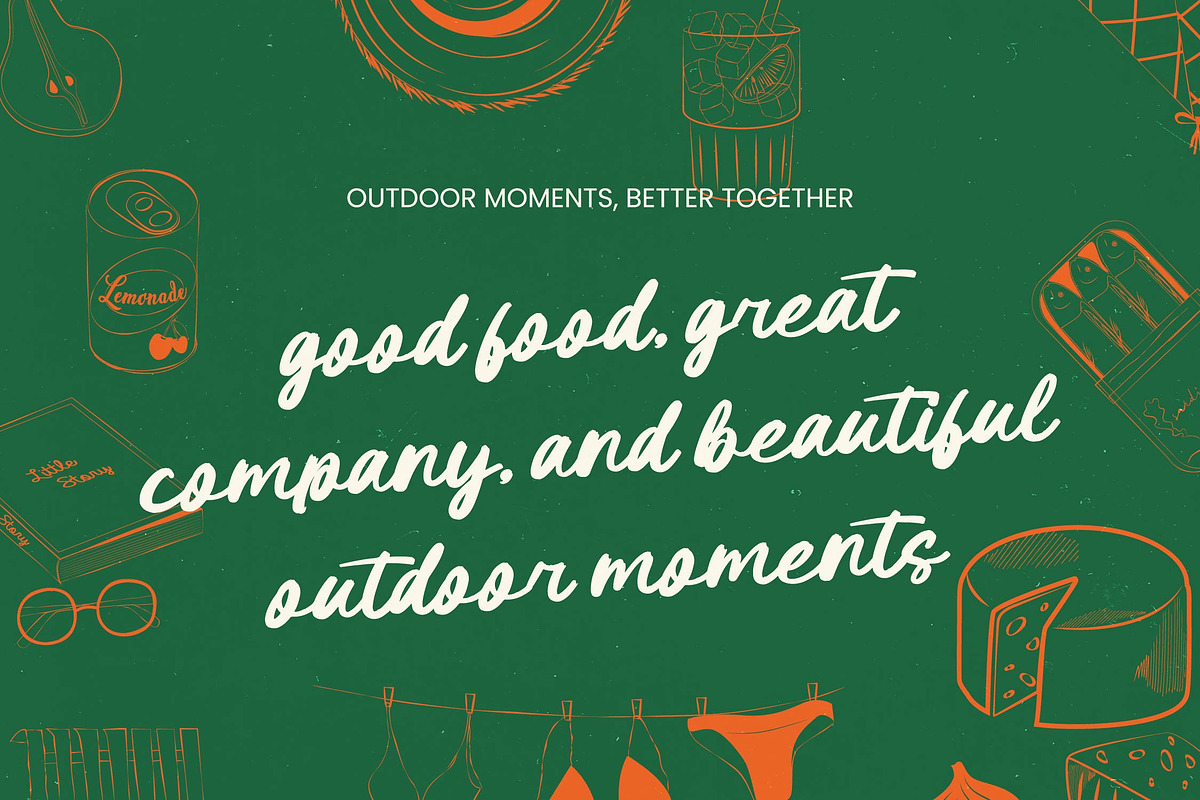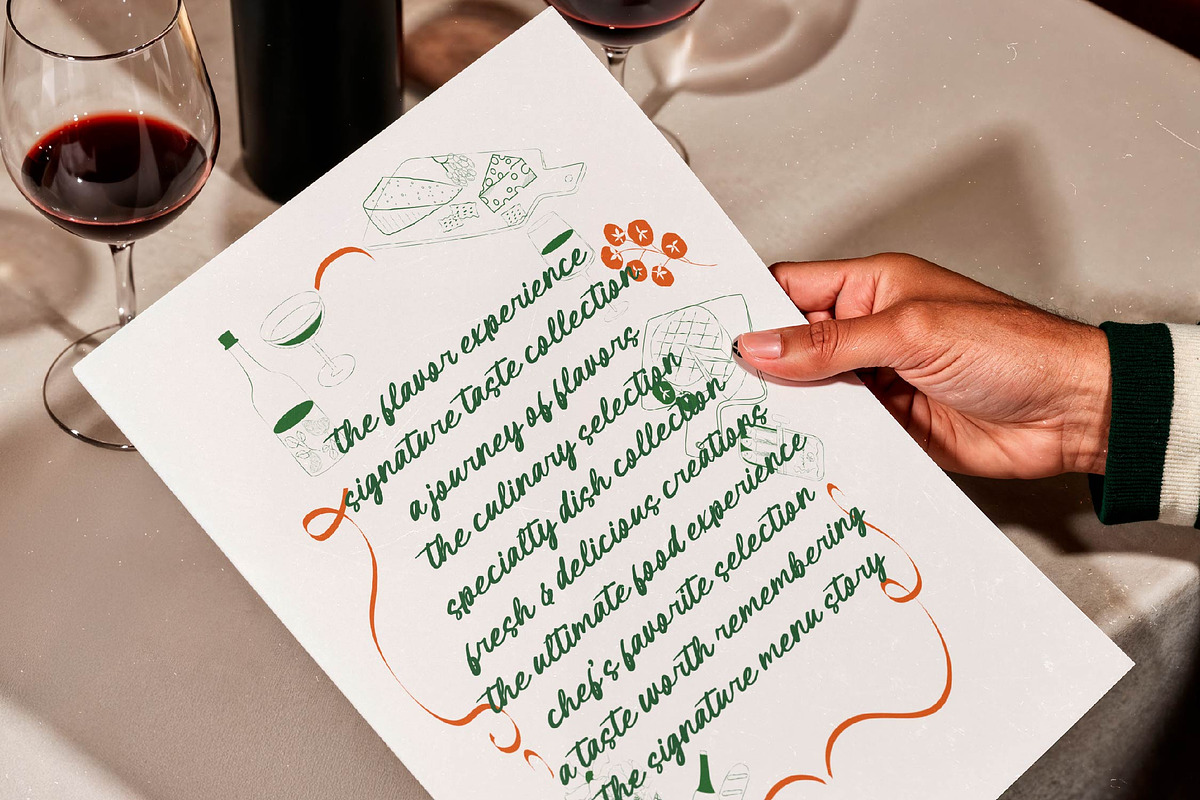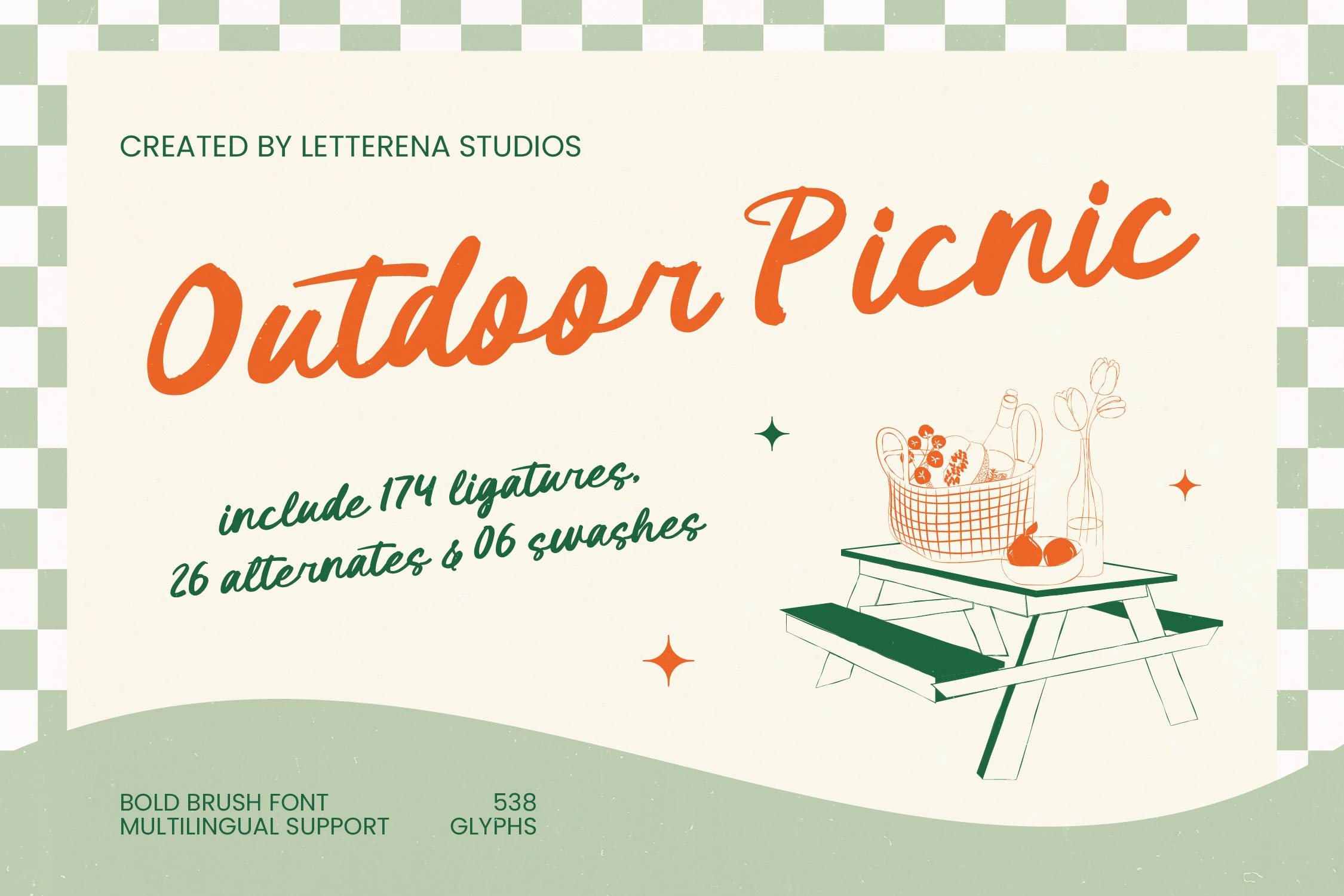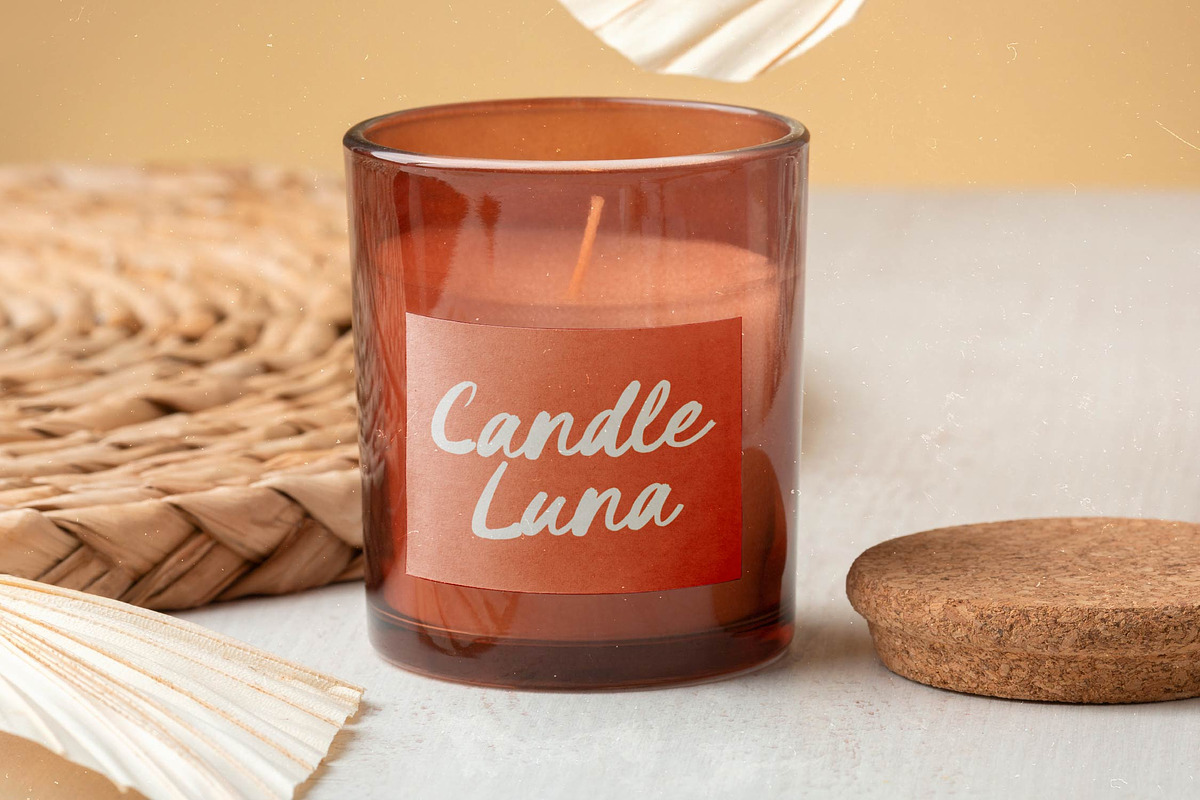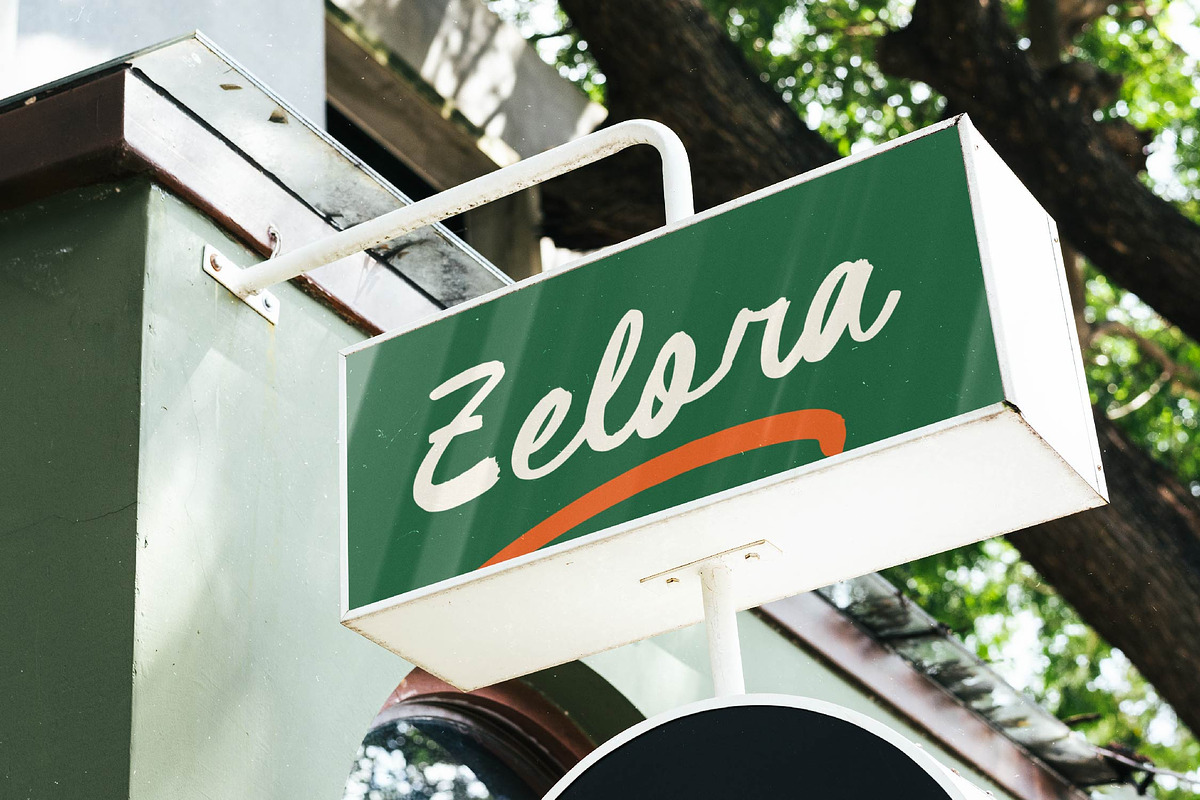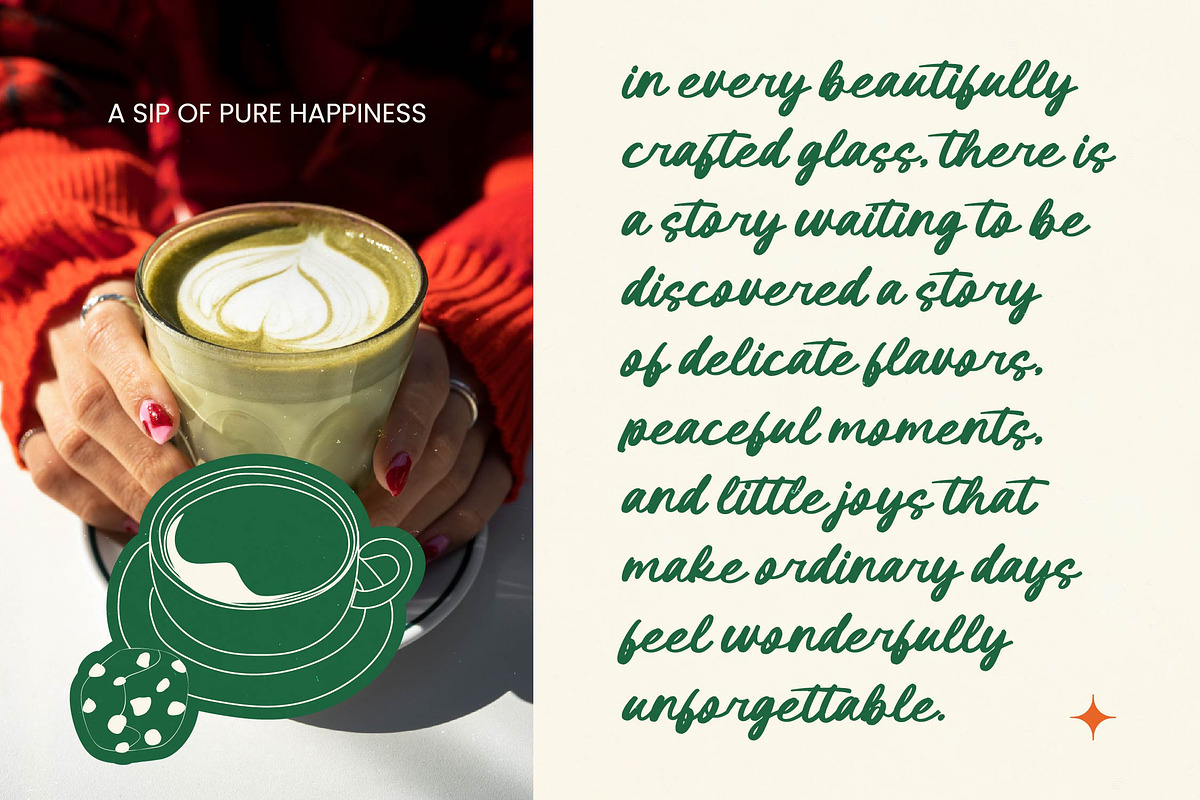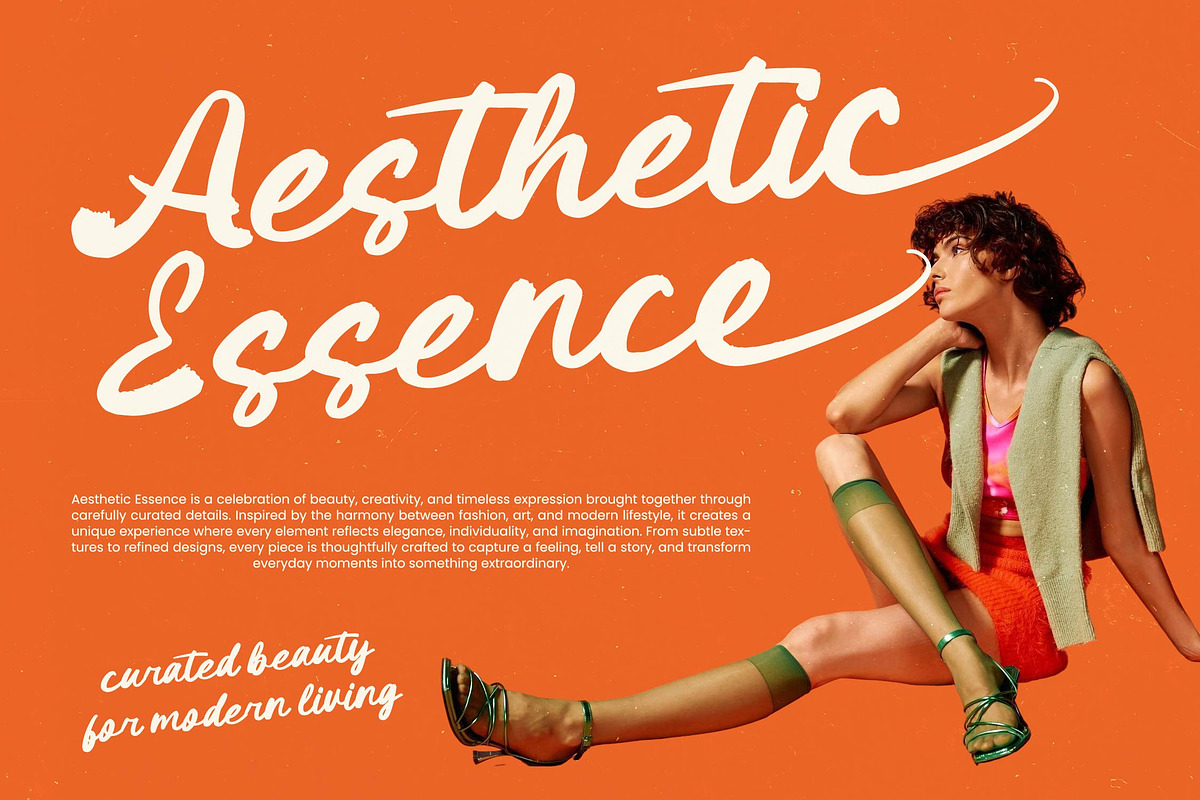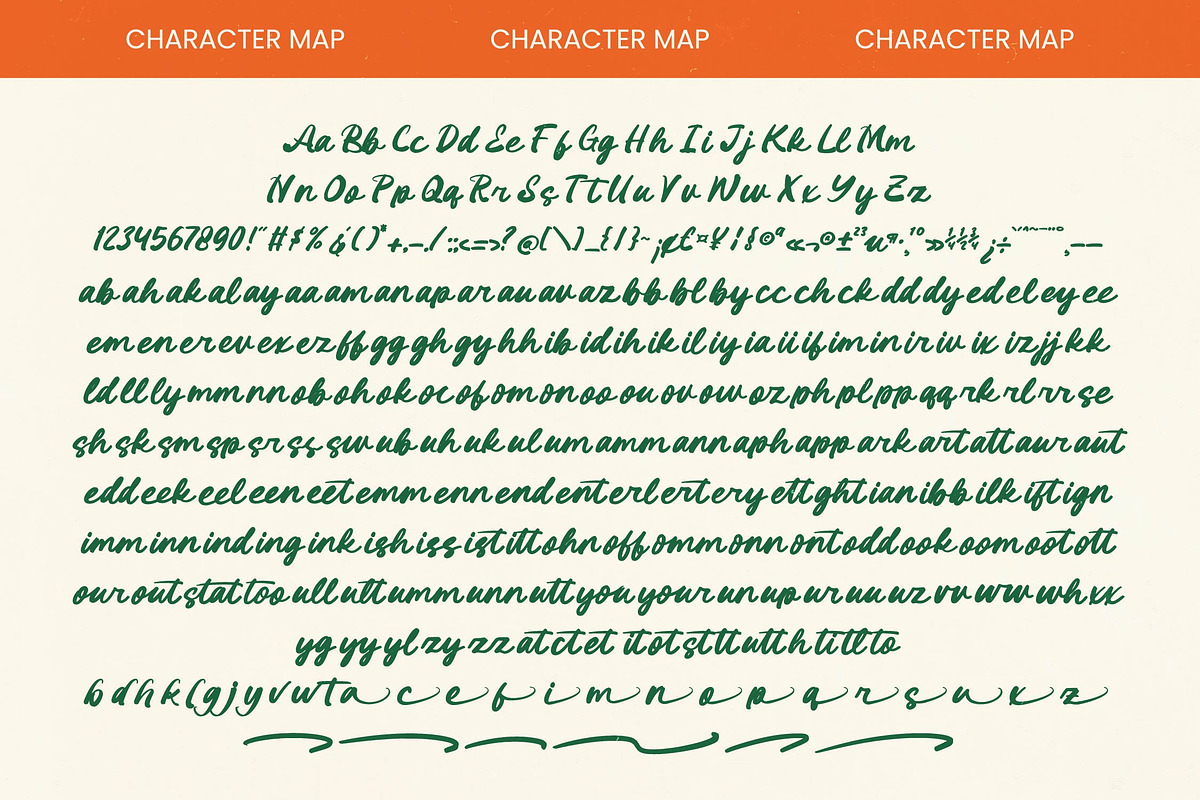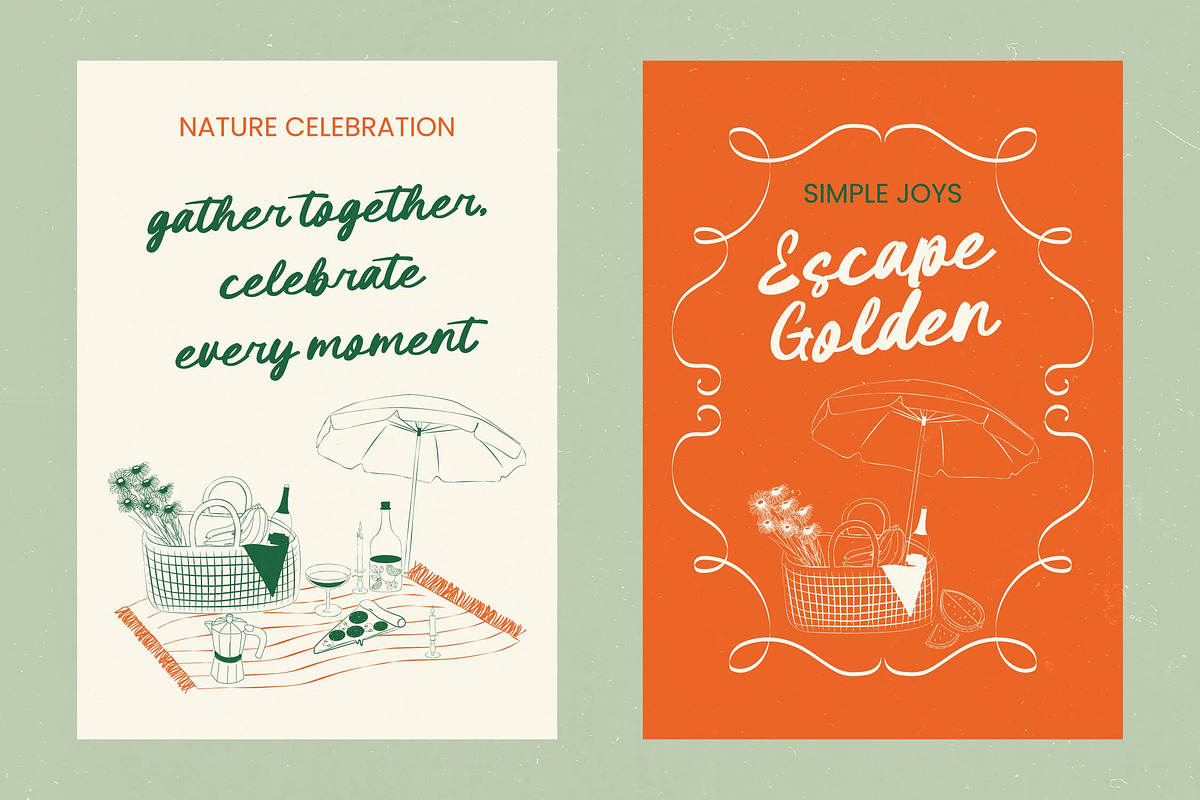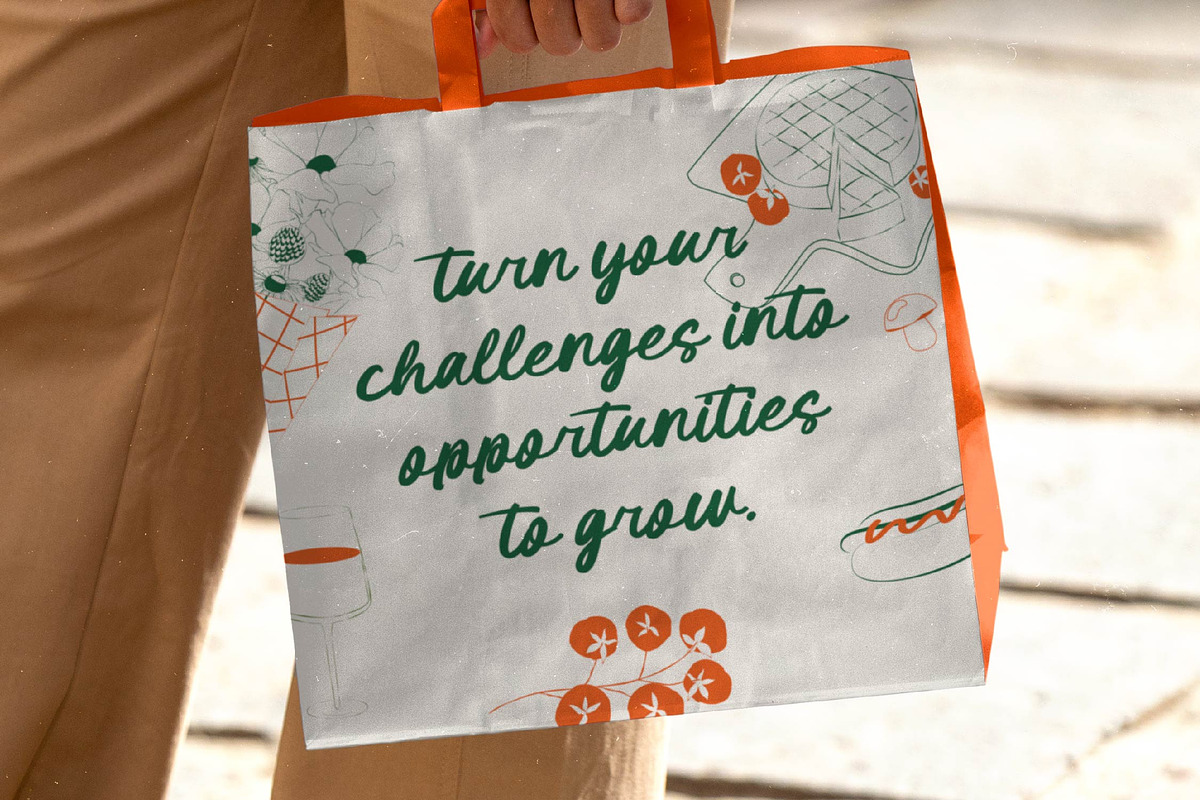
Outdoor Picnic Bold Brush Font
Outdoor Picnic - Bold Brush Font , Elevate your creative vision with a typeface that embodies the spirit of warmth and artisanal craftsmanship. Introduce Outdoor Picnic - Bold Brush Font as a high-impact, handcrafted script designed for brands that value personality and authenticity. Its fluid, expressive brush strokes create an immediate sense of approachability and organic style. By blending traditional calligraphy with a modern retro-inspired aesthetic, this font ensures your message stands out with unmatched visual energy and professional flair.
Experience technical excellence and expansive versatility with a robust set of typographic features. Boasting over 538 glyphs, including a staggering 174 ligatures and 26 alternates, Outdoor Picnic - Bold Brush Font provides endless customization options for a truly bespoke look. With its extensive multilingual support, Outdoor Picnic - Bold Brush Font adapts seamlessly across global markets, making it incredibly versatile for international projects. This ensures your brand identity remains consistent and impactful regardless of the linguistic landscape.
Transform ordinary designs into extraordinary brand experiences with the perfect typographic companion. This font is the ideal application for artisan packaging, lifestyle branding, and editorial design where a human touch is required. It is perfect for cafe menus, invitation suites, and social media graphics that demand a bold presence. Whether utilized in luxury product labels or large-scale environmental signage, Outdoor Picnic - Bold Brush Font delivers a sophisticated yet relaxed atmosphere that resonates with modern consumers.
Secure a competitive edge in the marketplace by choosing a typeface that balances elegance with raw power. Investing in Outdoor Picnic - Bold Brush Font means choosing a high-performance asset that streamlines your workflow while maximizing aesthetic appeal. Its natural texture and dynamic flow make it an essential tool for designers seeking to craft memorable visual narratives. Elevate your next project with the premium quality of Outdoor Picnic - Bold Brush Font and capture your audience's attention with every character.